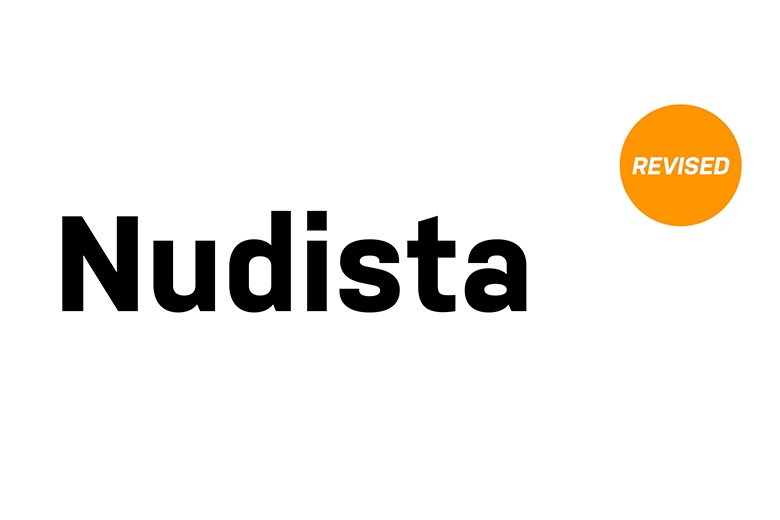
Nudista Font Family
Nudista is a classical sans-serif typeface which enjoys a minimalistic, modern and contemporary sans-serif appearance for any design usage. They are not limited to square shape, but they follow a rather comfortable curvature-v oval, round forms. The letter outlines are polished, almost clinical: the geometric ideal is, however, balanced by the occasional addition in areas where the letter forms would interfere with each other’s clarity and where sheer graphic design and style might take priority.
Nudista was initially designed for the use as a display type face but proves to be fairly readable even in texts. Therefore, it makes sense for short texts in corporate prints. The curves of the letters are slick, and one can tell that an effort has been made to make them thick and rugged for the use in the severe environment of low quality prints, it is optimized for both computer and mobile displays.
However, most successfully Nudista implemented in corporate networks, navigation and orientation, in which it can be, due to the sufficiently sufficient range of weights, an excellent equivalent to the widely used and therefore somewhat clichéd DIN. That is why naked typeface with no needless decorations can be meet in all places where too expressive types can be disturbing.
Nudista Sans Serif Font Family